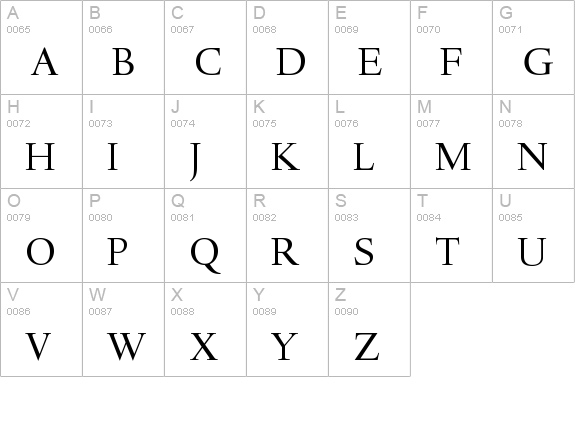
DTLHaarlemmerD Font Details
The DTLHaarlemmerD font is a versatile and elegant typeface that exudes sophistication and modernity. Its clean lines and balanced proportions make it ideal for a wide range of design projects, from branding to editorial design. With a timeless appeal and a touch of contemporary flair, this font is sure to make a statement wherever it is used. What makes DTLHaarlemmerD even more appealing is that it is available for free download at FontsMarket.com. This means that you can easily access this high-quality font without any cost, making it a valuable addition to your font library. Whether you're a professional designer or a hobbyist, DTLHaarlemmerD is a must-have font that will elevate your projects to the next level.